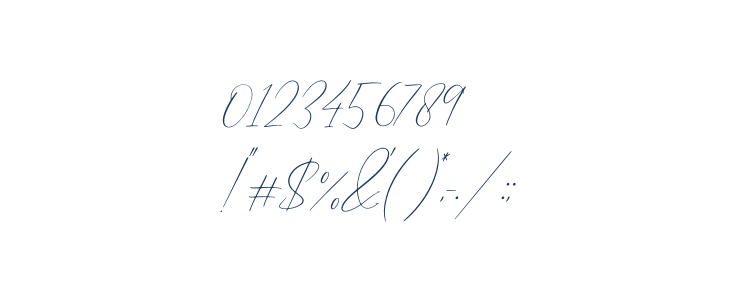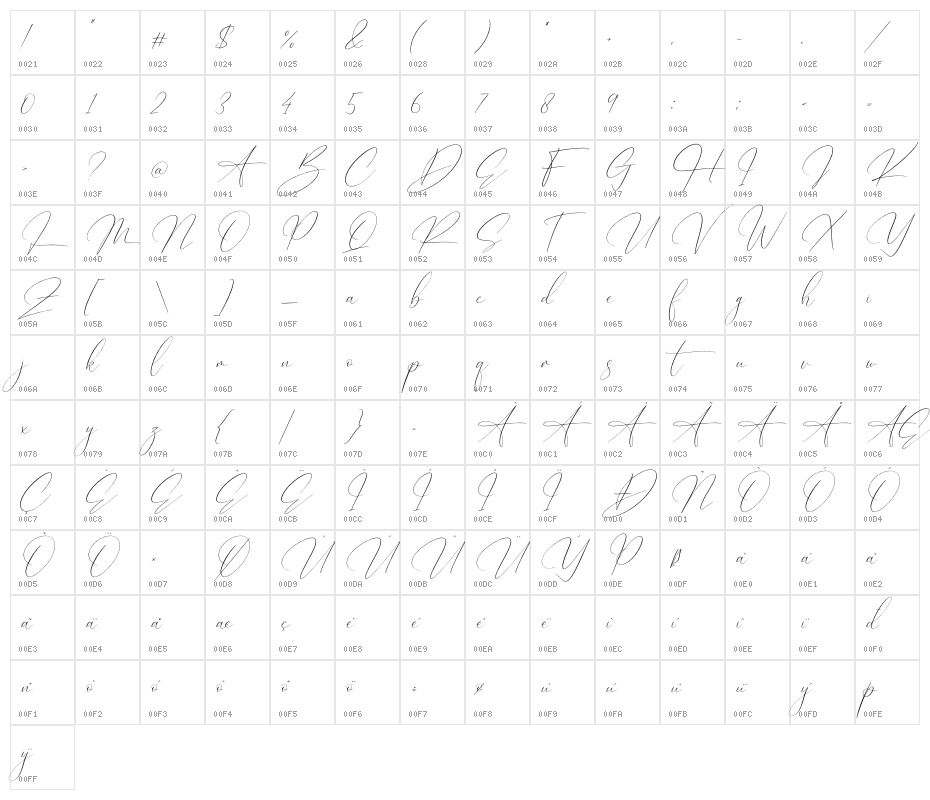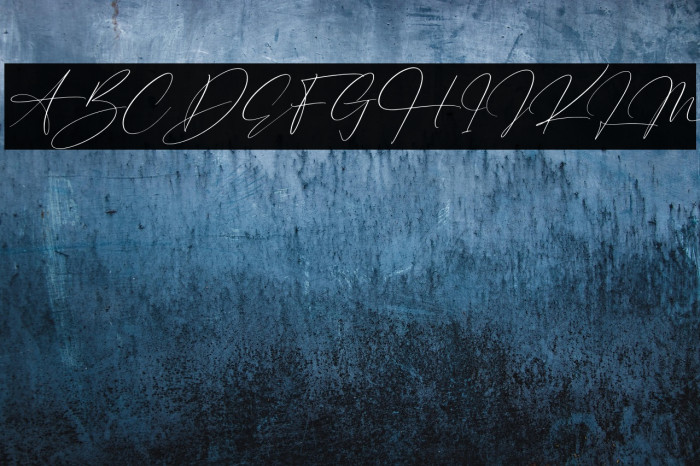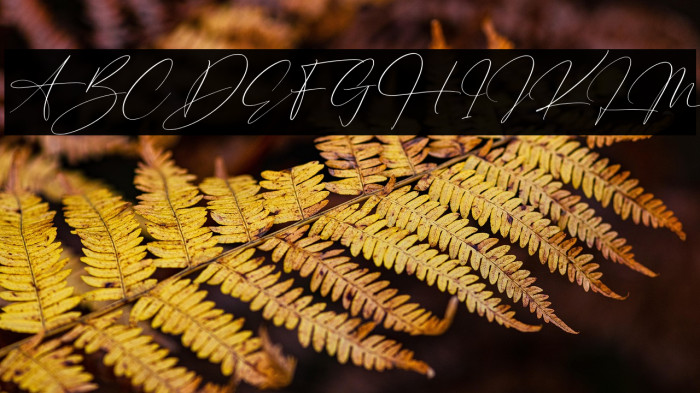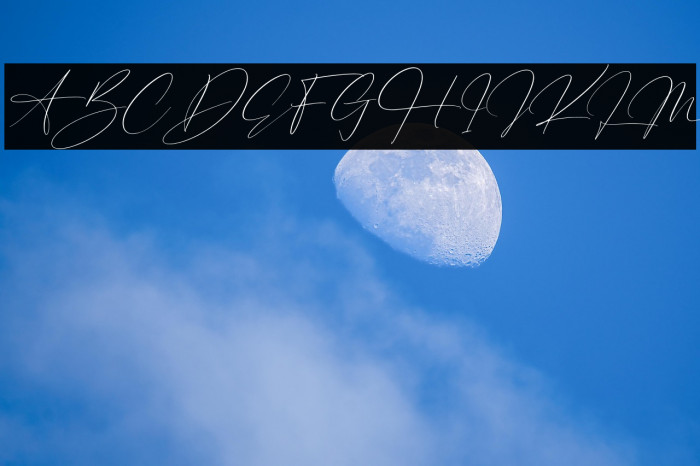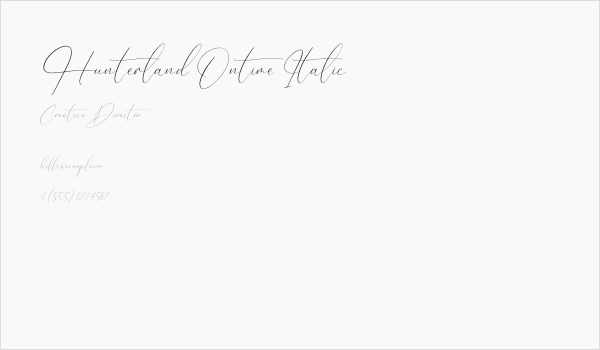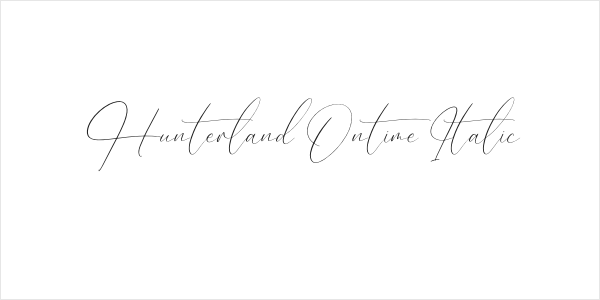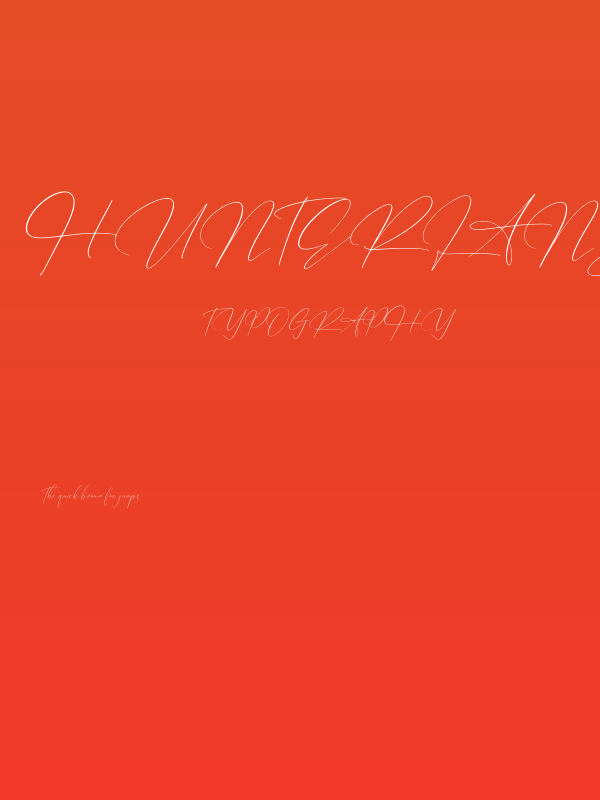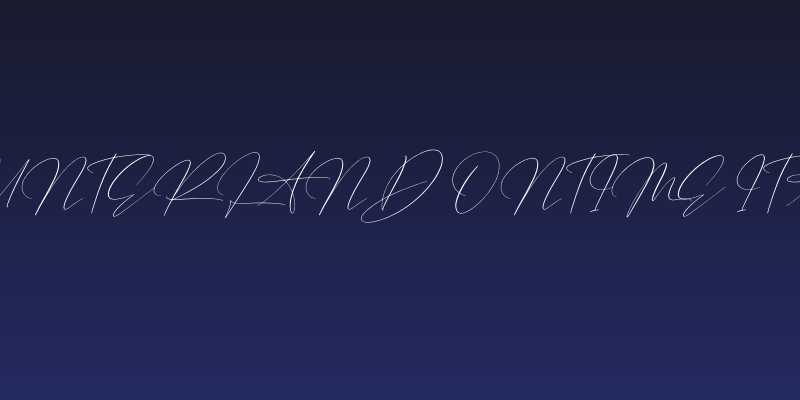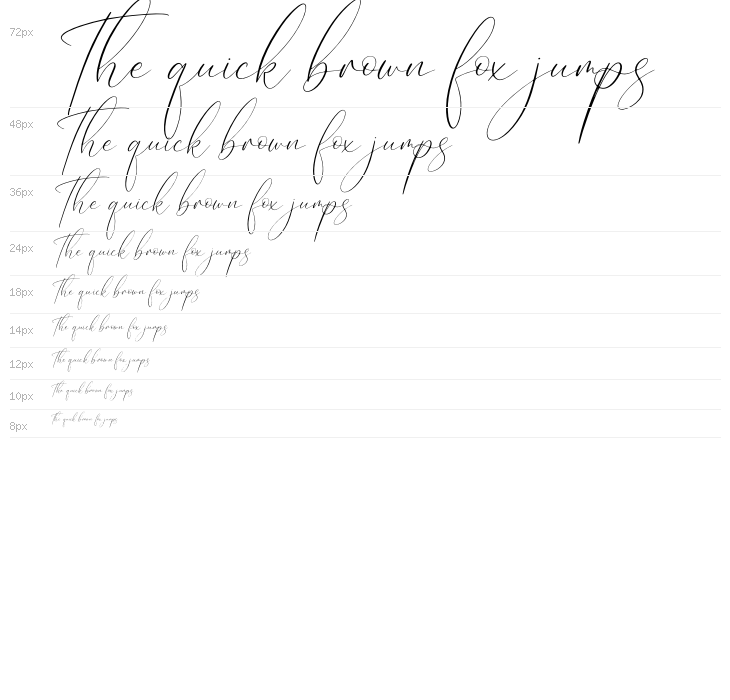
Hunterland Ontime Italic Font
Hunterland Ontime Italic Description
This elegant and flowing script font exudes a sense of sophistication and grace. The characters are delicately crafted with a fine, smooth stroke that gives it a handwritten appearance. The uppercase letters are tall and slightly slanted, while the lowercase letters maintain a consistent flow with beautiful loops and curves. The numerals and special characters are designed to match the overall aesthetic, providing a cohesive look. This font is perfect for projects that require a touch of elegance and personal flair.
| Overall Style | Elegant, Handwritten |
| Proposed Projects | Ideal for wedding invitations, elegant branding, personal stationery, and artistic projects. |